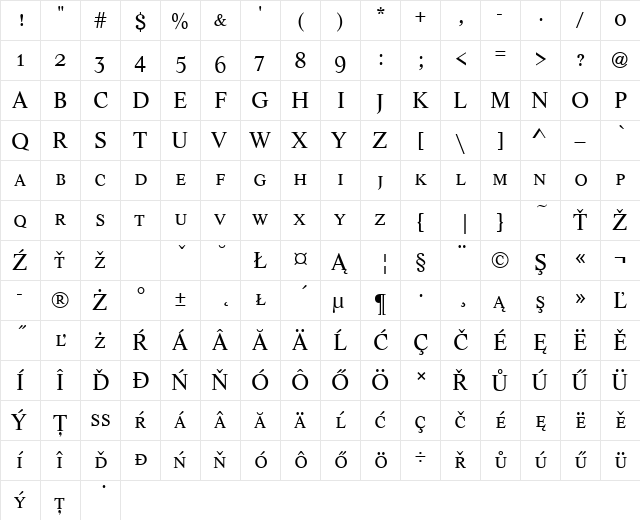
LifeSCTEE Regular
Design Context for LifeSCTEE Typeface
LifeSCTEE offers clean, dependable letterforms without strong stylistic allegiance, making it a practical choice for designers who need flexibility.